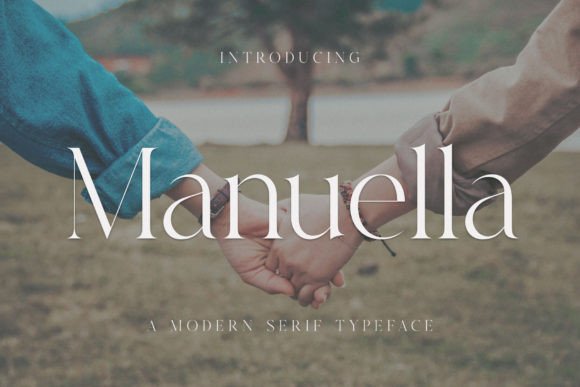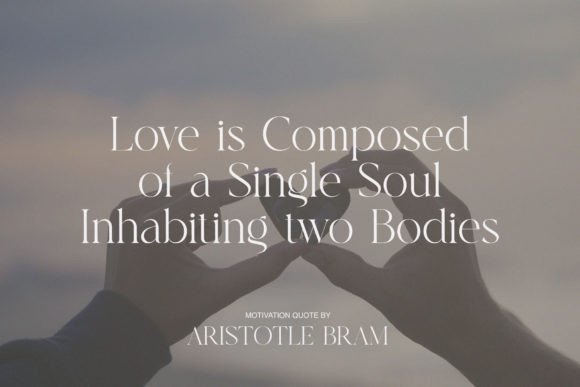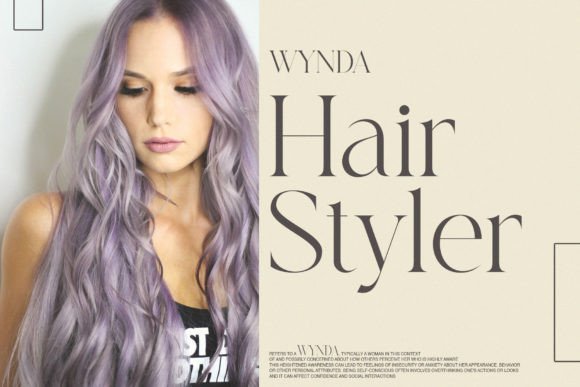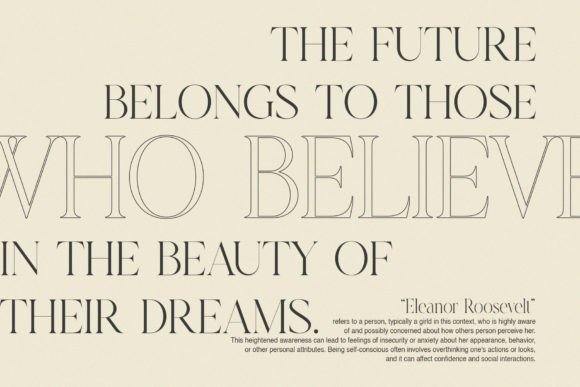
Manuella Font: Elegant Serif Typography for Logo Design & Branding
About the Manuella Font
The wait is over! The incredible Manuella Font is now available for your design toolkit. **Manuella Serif Typeface Font** inspired by the famous minimalist logo perfect for the purposes of designing templates, brochures, videos, advertising branding, logos, invitations, layout design, elegant crafting, beauty design, and more.
Manuella’s clean lines and minimalist aesthetic make it ideal for headlines, logos, and short-form text in branding materials and advertising. Its elegance shines in invitations and packaging design where sophistication is key. However, its limited character set and x-height make it less suitable for body copy or UI elements requiring extensive readability.
Consider pairing Manuella with a geometric sans-serif like Futura for a modern, balanced feel, or a warmer, slightly more traditional serif like Garamond for a touch of classic elegance. For a more playful contrast, a script font with a similar level of refinement could be used sparingly for accents.
Manuella projects a sophisticated, modern, and subtly authoritative personality. It’s a strong choice for brands aiming for a clean, high-end image, particularly those in the fashion, beauty, or luxury goods sectors.